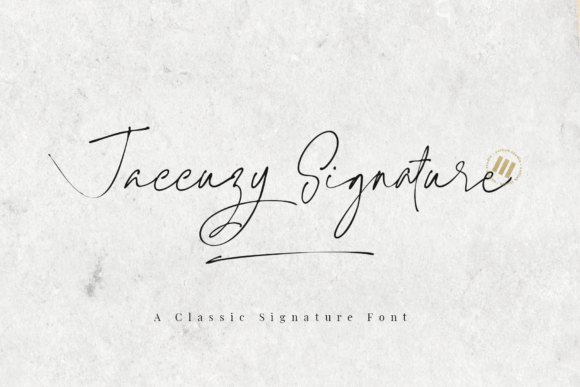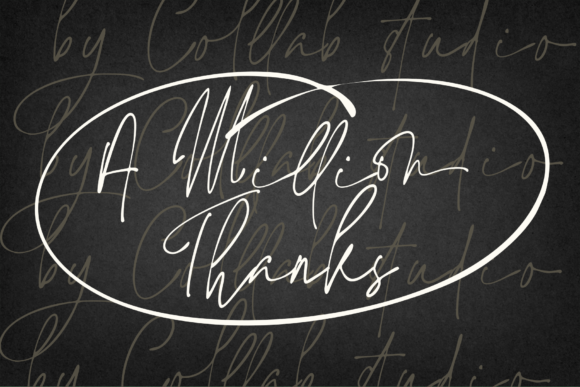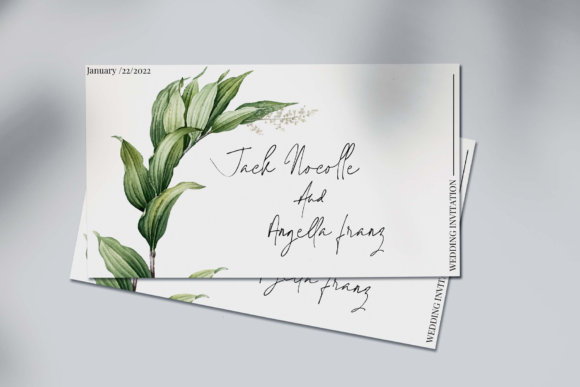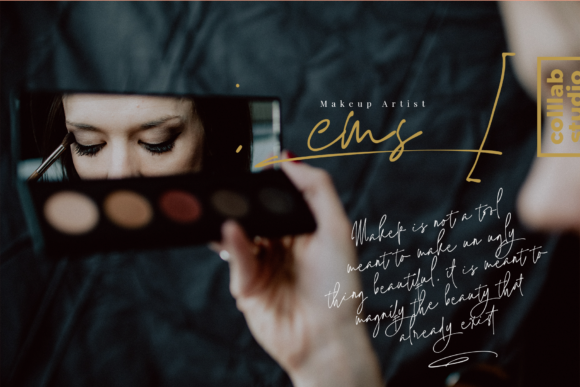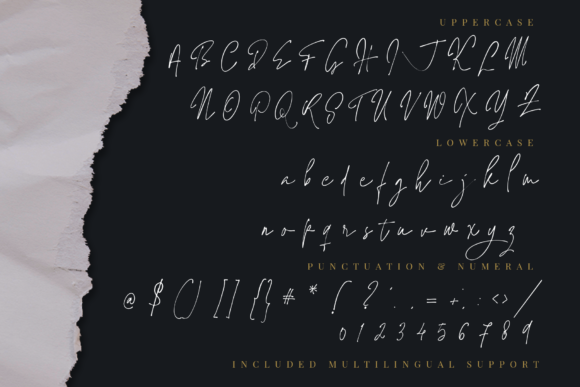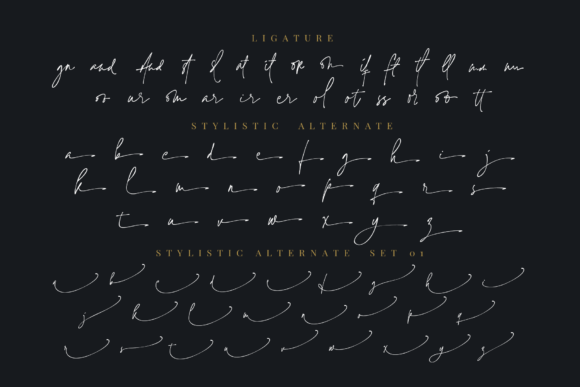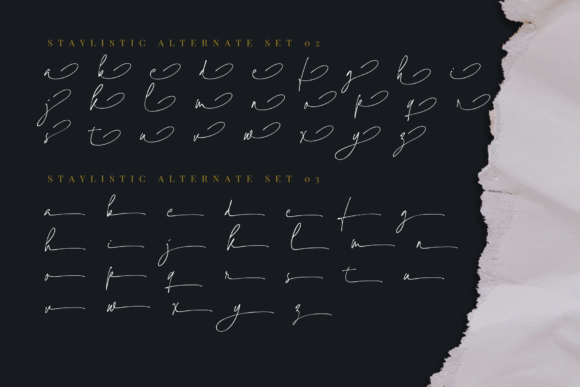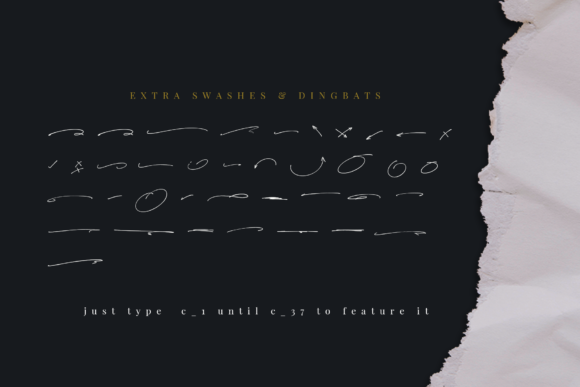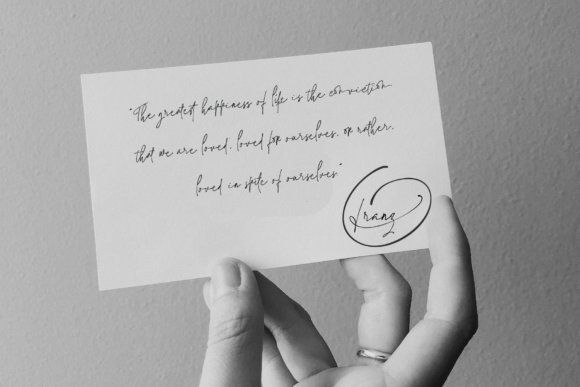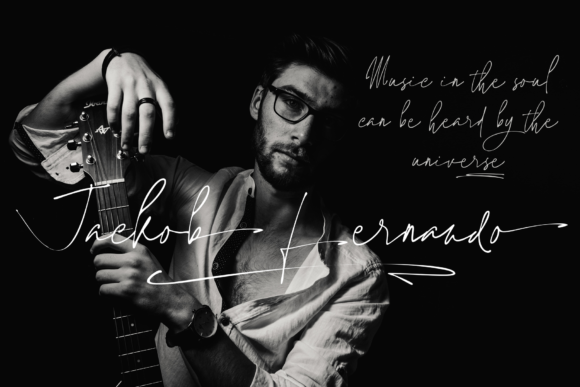
Jaccuzy Signature Font
About Jaccuzy Signature Font
Jaccuzy Signature is an exquisite handwritten font that effortlessly captures the essence of timelessness and relaxation. With its smooth and flowing lines, this font exudes a sense of effortless elegance that adds a touch of sophistication to any design. Its versatility knows no bounds, making it a perfect choice for various creative projects.
For wedding invitations, Jaccuzy Signature lends an air of romance and charm, setting the tone for a memorable celebration of love. Thank you cards come alive with this font, conveying heartfelt gratitude with a personal touch. Quotes take on a whole new level of beauty, with Jaccuzy Signature enhancing their meaning and impact.
Greeting cards become works of art when adorned with this stunning handwritten font. Whether it’s heartfelt wishes, joyous celebrations, or comforting messages, Jaccuzy Signature breathes life into each word. Logos designed with this font radiate authenticity and originality, leaving a lasting impression on clients and customers.
Business cards become memorable keepsakes when graced by the elegance of Jaccuzy Signature. Its varying baseline and artistic swashes elevate the professional image of any brand. Social media graphics become eye-catching and shareable, drawing in audiences with its unique and captivating style.
For book covers, Jaccuzy Signature can be a defining element, expressing the essence of the story within. The font’s stunning alternates add intrigue and allure, piquing the interest of potential readers. On product packaging, this font elevates the overall appeal, making it stand out on crowded shelves.
Incorporate Jaccuzy Signature into personalized stationery, and every handwritten note becomes a cherished keepsake. Its relaxed yet sophisticated demeanor makes it perfect for expressing gratitude, affection, or just sending warm wishes to loved ones.
For arts and crafts, Jaccuzy Signature provides an elegant touch to DIY projects and handmade creations. From scrapbooks to wall art, the font adds a touch of beauty and grace to every piece. Whether designing handbills, flyers, or posters, this font brings the perfect balance of artistry and professionalism.
In journals and planners, Jaccuzy Signature lends an aura of tranquility and introspection, inspiring creativity and mindfulness. Its timeless appeal makes it ideal for creating artistic prints and decor that stand the test of time.
In conclusion, Jaccuzy Signature is a captivating and versatile handwritten font that transforms ordinary designs into extraordinary works of art. With its PUA encoding, accessing all the delightful glyphs and swashes is effortless, offering endless design possibilities. From formal events to everyday expressions of love and appreciation, Jaccuzy Signature is the quintessential font for infusing elegance and grace into every aspect of life.